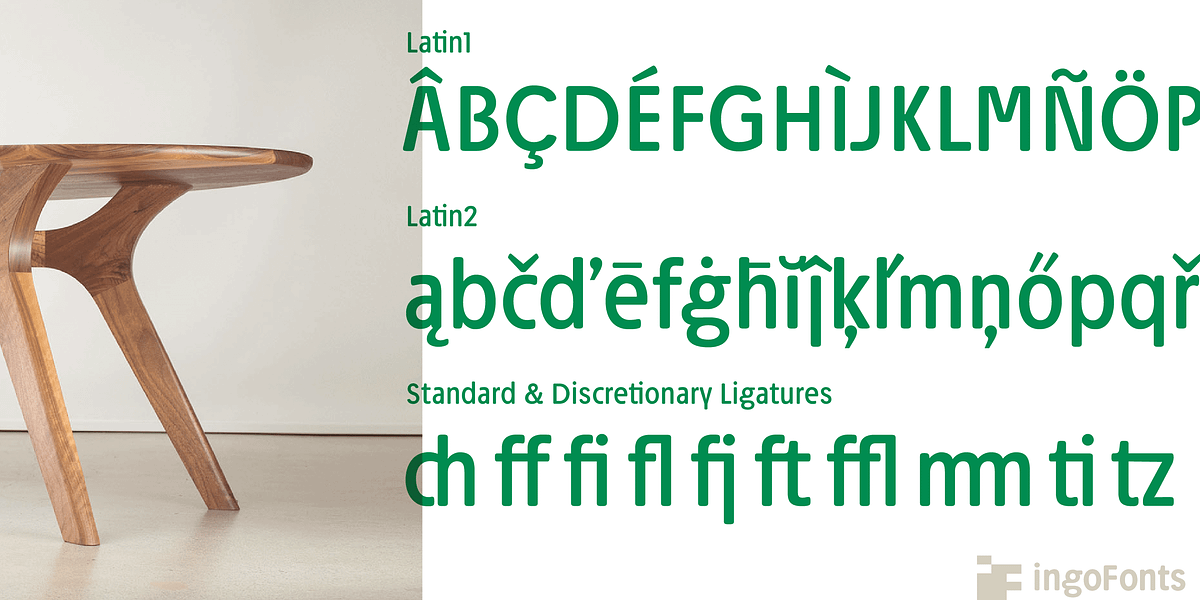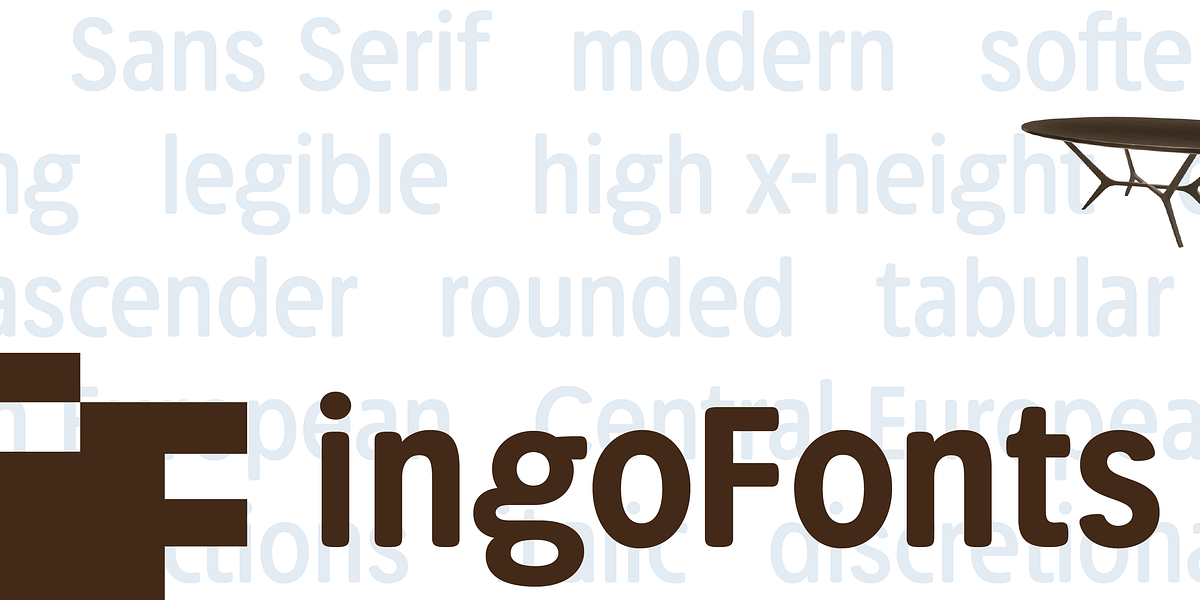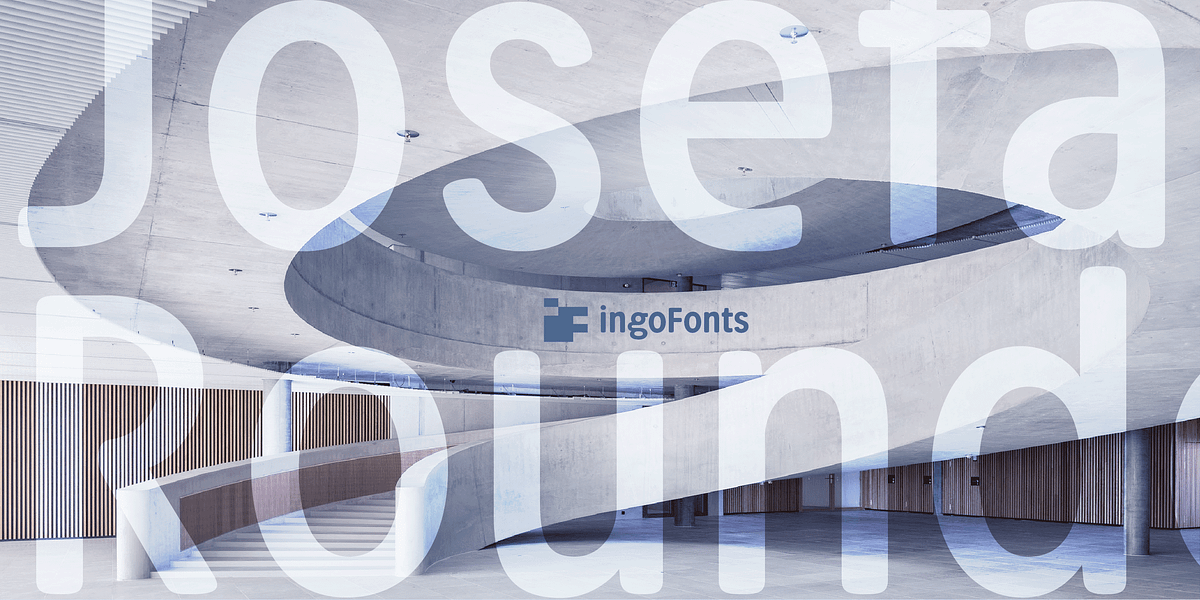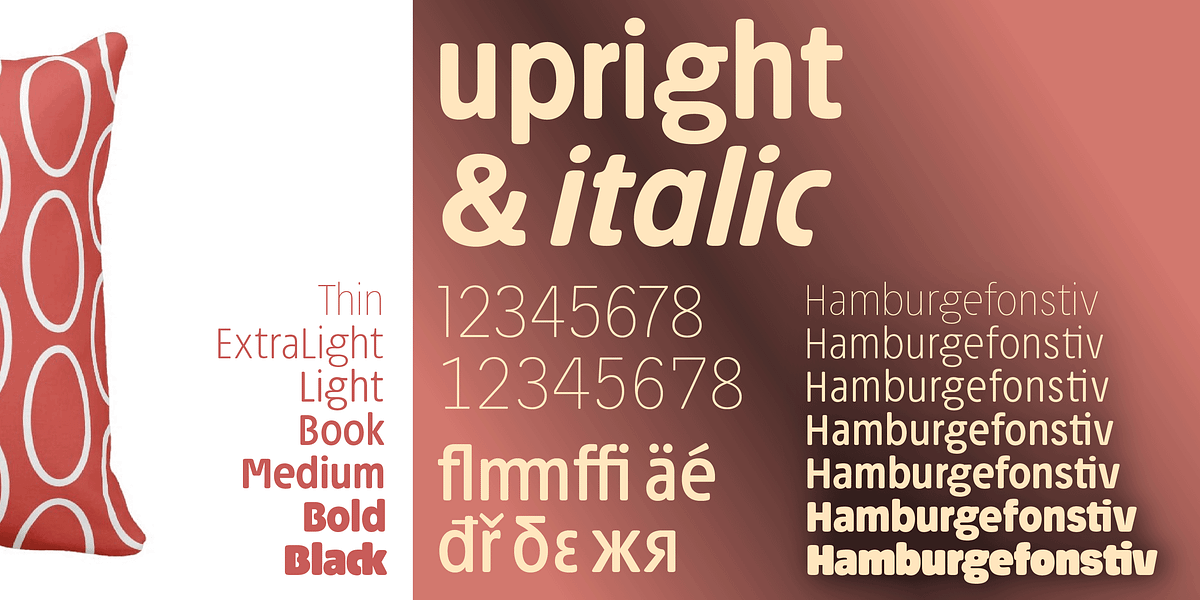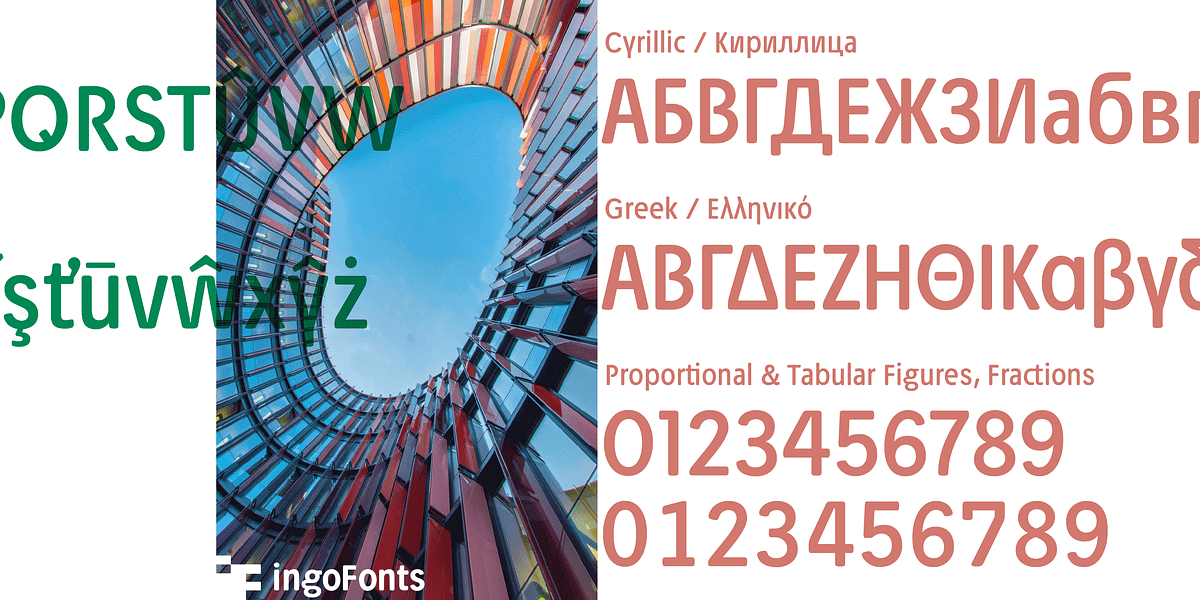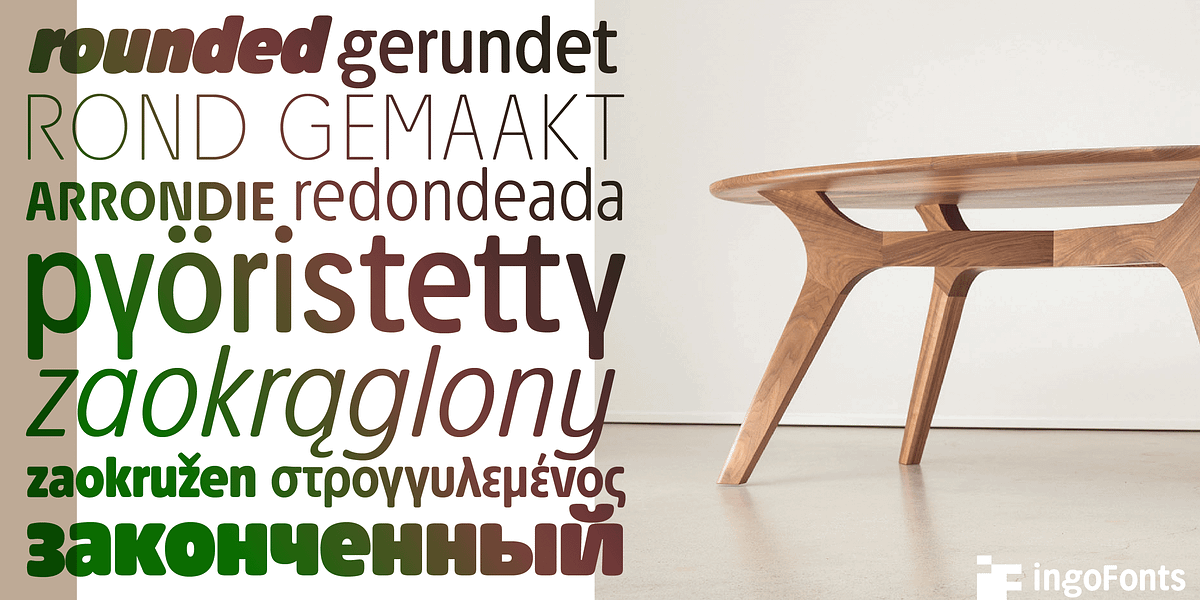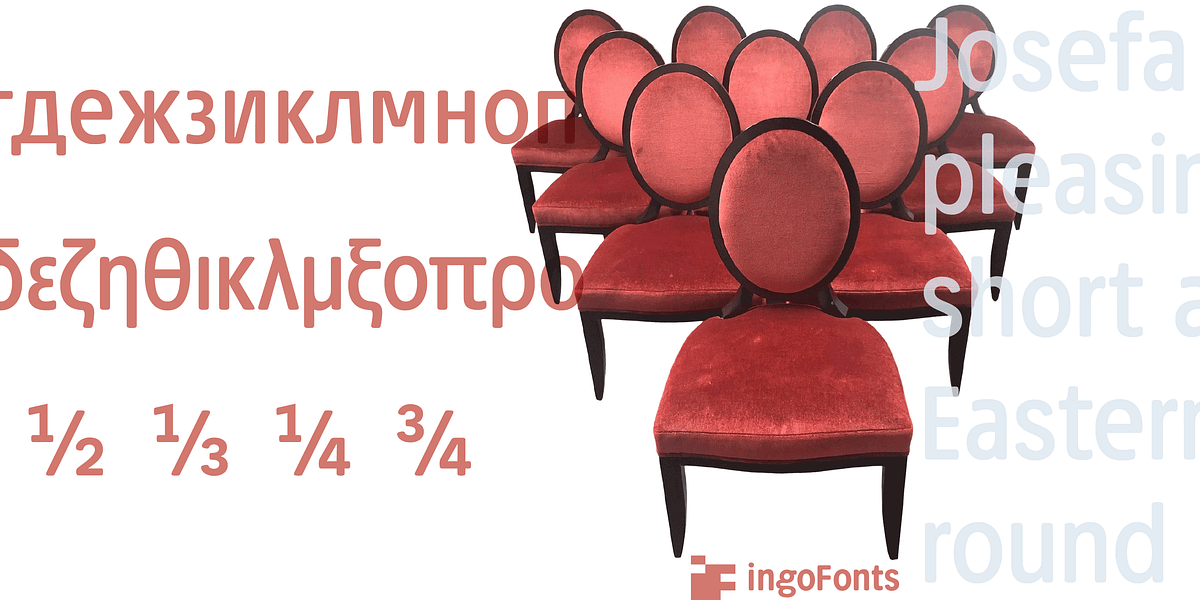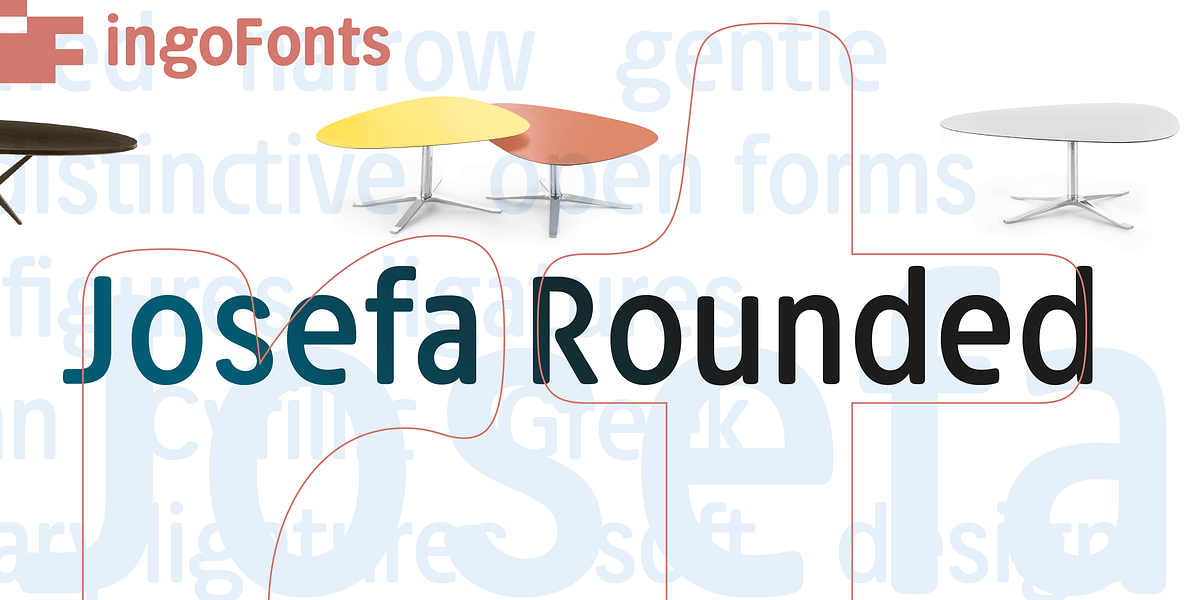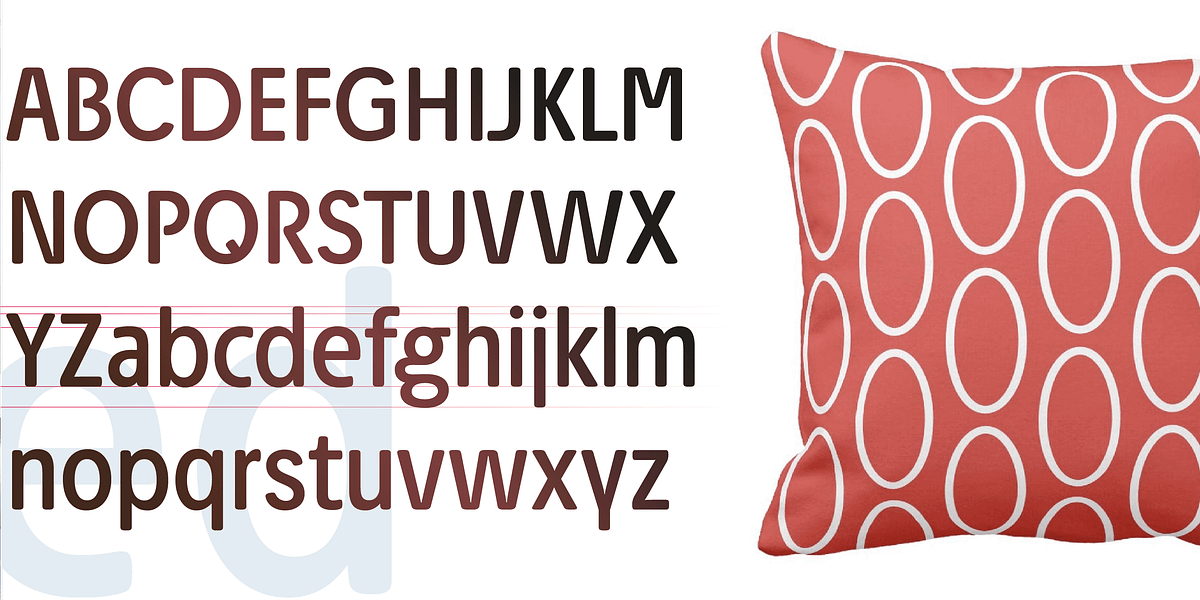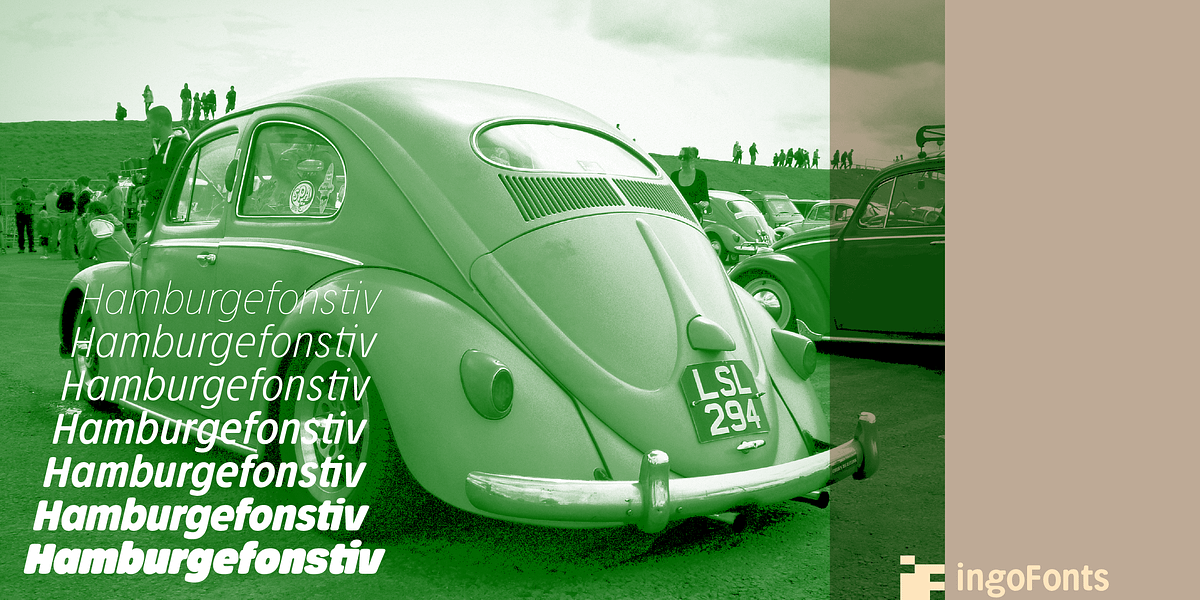
Josefa Rounded Pro
Josefa Rounded is a sans serif typeface characterized by its soft rounded edges and geometric forms. Its narrow proportions and high x-height contribute to its legibility, making it well-suited for extended text settings. The font features distinctive letterforms, such as open B, P, and R, and symmetrical y. Josefa Rounded also includes tabular and proportional figures, ligatures, and discretionary ligatures, offering a range of typographic options.